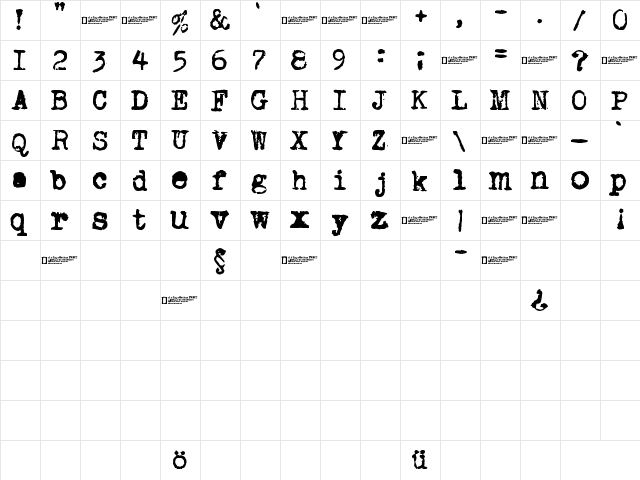
Old typewriter Regular Font Preview
Old typewriter Regular
Design Context for Old typewriter Typeface
Old typewriter uses fixed-width spacing throughout, giving it the structured, systematic character associated with coding environments and technical documentation.
Well-suited to data-driven dashboards, coding tutorials, and any design that wants to reference the world of programming.
Pro Tip: Use Old typewriter with slightly increased line-height for extended reading — fixed-width spacing can feel dense in longer passages without extra breathing room.